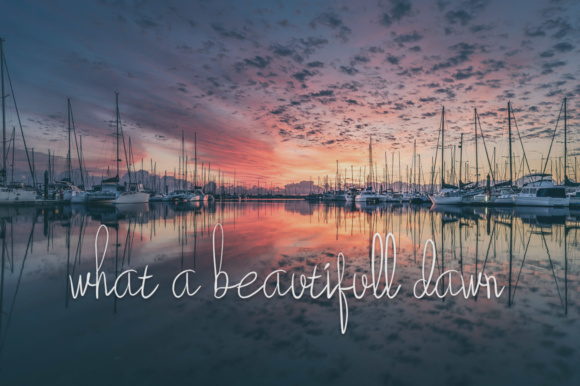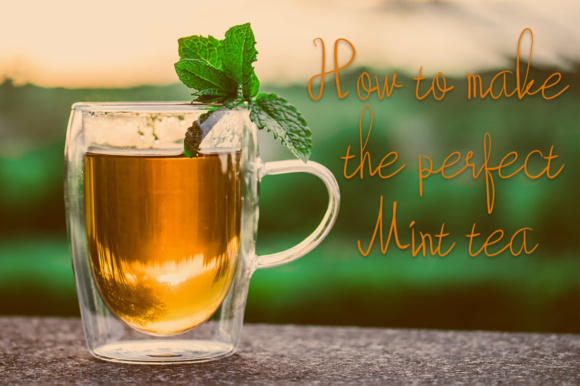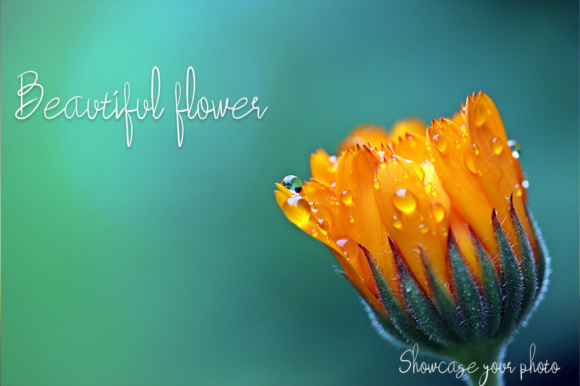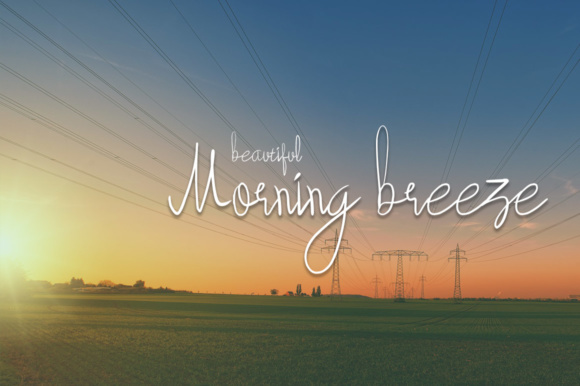
Discover Your Signature Style with Beauty Forest Font
Have you ever been brainstorming a creative project, flipping through inspiration boards, and suddenly, a spark of magic happens? You stumble upon the perfect font that speaks to your unique style, and everything clicks into place. This is exactly what I experienced when I first laid eyes on the Beauty Forest Font. Its calming, handwritten charm immediately captured my heart, and I knew I had to share it with fellow creatives.
Beauty Forest Font is a stunning, handwritten font designed to bring a touch of elegance and sophistication to your work. Whether you’re a graphic designer, writer, or artist, this font is perfect for adding a personal touch to your projects. With its versatility and unique feel, Beauty Forest Font is a valuable addition to any designer’s toolkit, helping to set their work apart and leave a lasting impression.
- Unique Characteristics: The Beauty Forest Font boasts a unique, hand-drawn design with intricate details and flourishes, making it perfect for creative projects and designs that require a touch of elegance.
Beauty Forest Font Review
I recently had the chance to work with the Beauty Forest Font, and I must say it’s a unique addition to any design project. ✨ The font’s natural, hand-drawn feel immediately caught my attention, and its versatility makes it suitable for a wide range of applications, from invitations to editorial content.
Here are some of the things that stood out to me:
- ✨ Organic feel: The font’s imperfections and natural strokes give it a charming, human touch that’s hard to replicate with digital tools.
- ✨ Legibility: Despite its unconventional appearance, the Beauty Forest Font remains surprisingly easy to read, even at smaller font sizes.
- ✨ Customization: The font offers a range of styles and weights, allowing designers to experiment with different looks and moods.
- ⚠️ Limited character set: The font’s character set is not comprehensive, which may limit its usability in certain contexts.
- ⚠️ Inconsistencies: Some characters may appear slightly irregular or inconsistent, which could be jarring in longer blocks of text.
Overall, the Beauty Forest Font is a refreshing change of pace for designers looking to add some personality to their work. While it may not be suitable for every project, its unique charm and customization options make it a valuable addition to any design toolkit.
Tips for Getting the Most Out of Beauty Forest Font
For optimal results, use the Beauty Forest font in conjunction with high-quality images and thoughtful design elements. Experiment with different font sizes, colors, and styles to create a unique and visually appealing design.
The Beauty Forest font is ideal for:
- Wedding planners and coordinators
- Florists and event designers
- Wedding bloggers and influencers